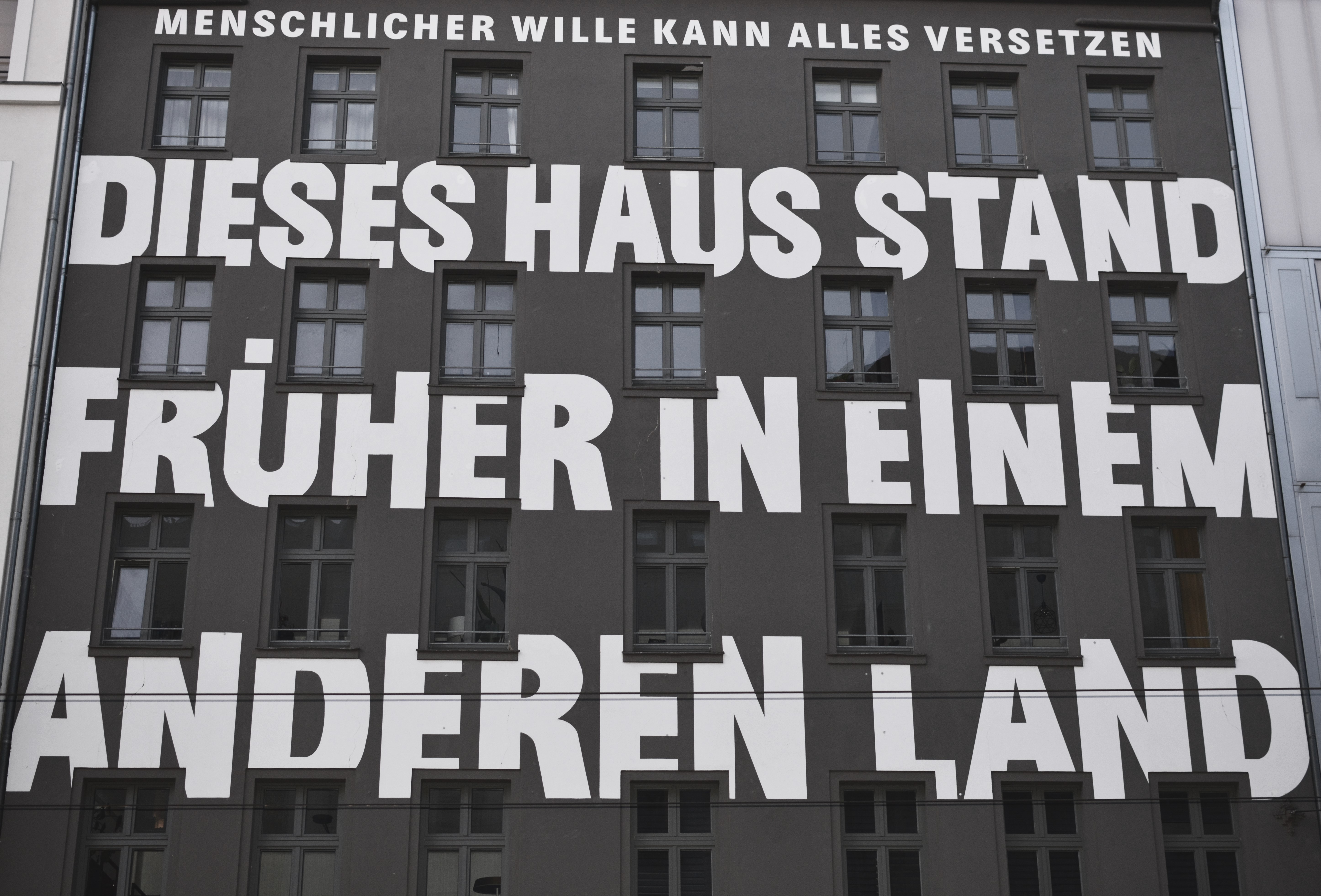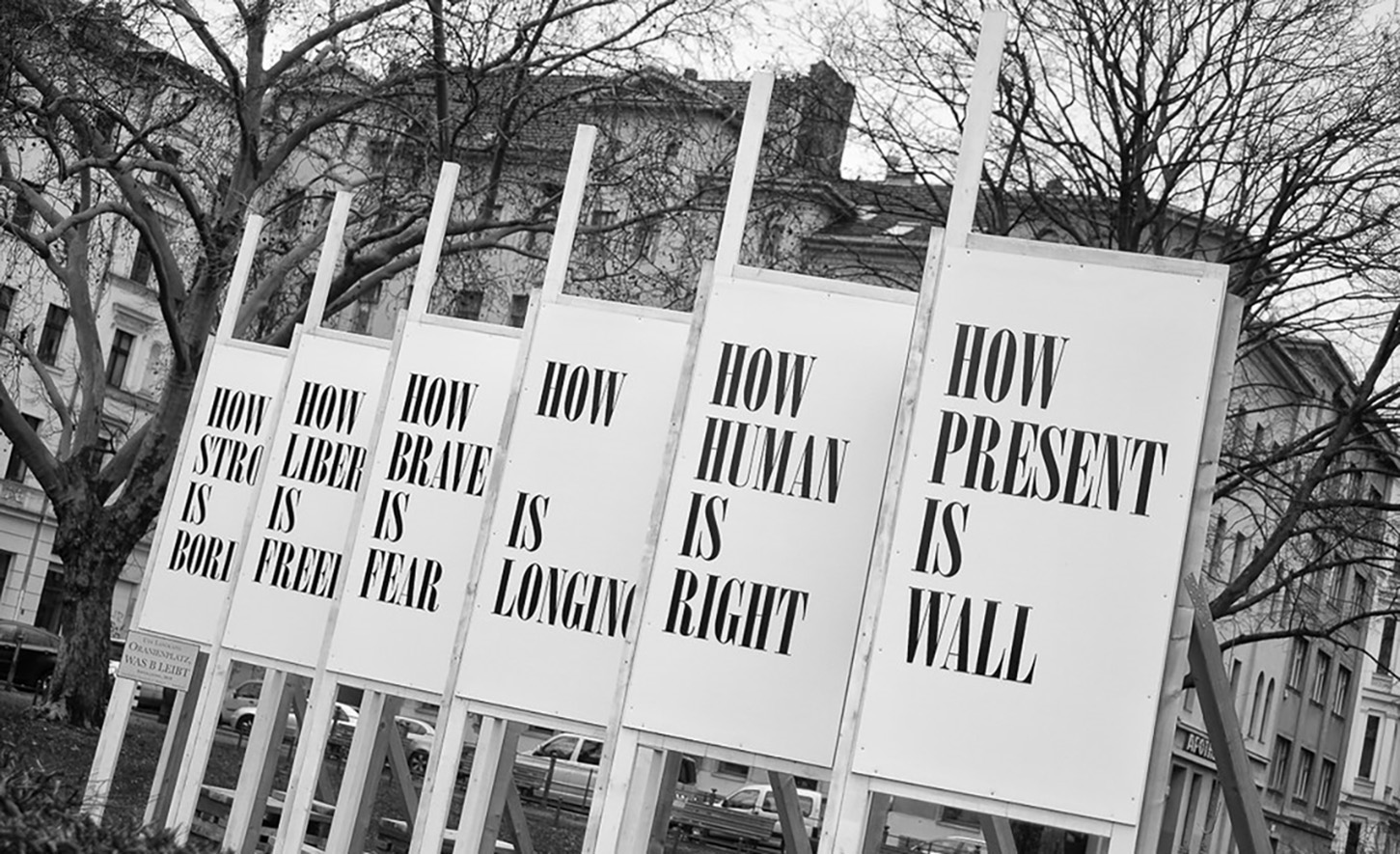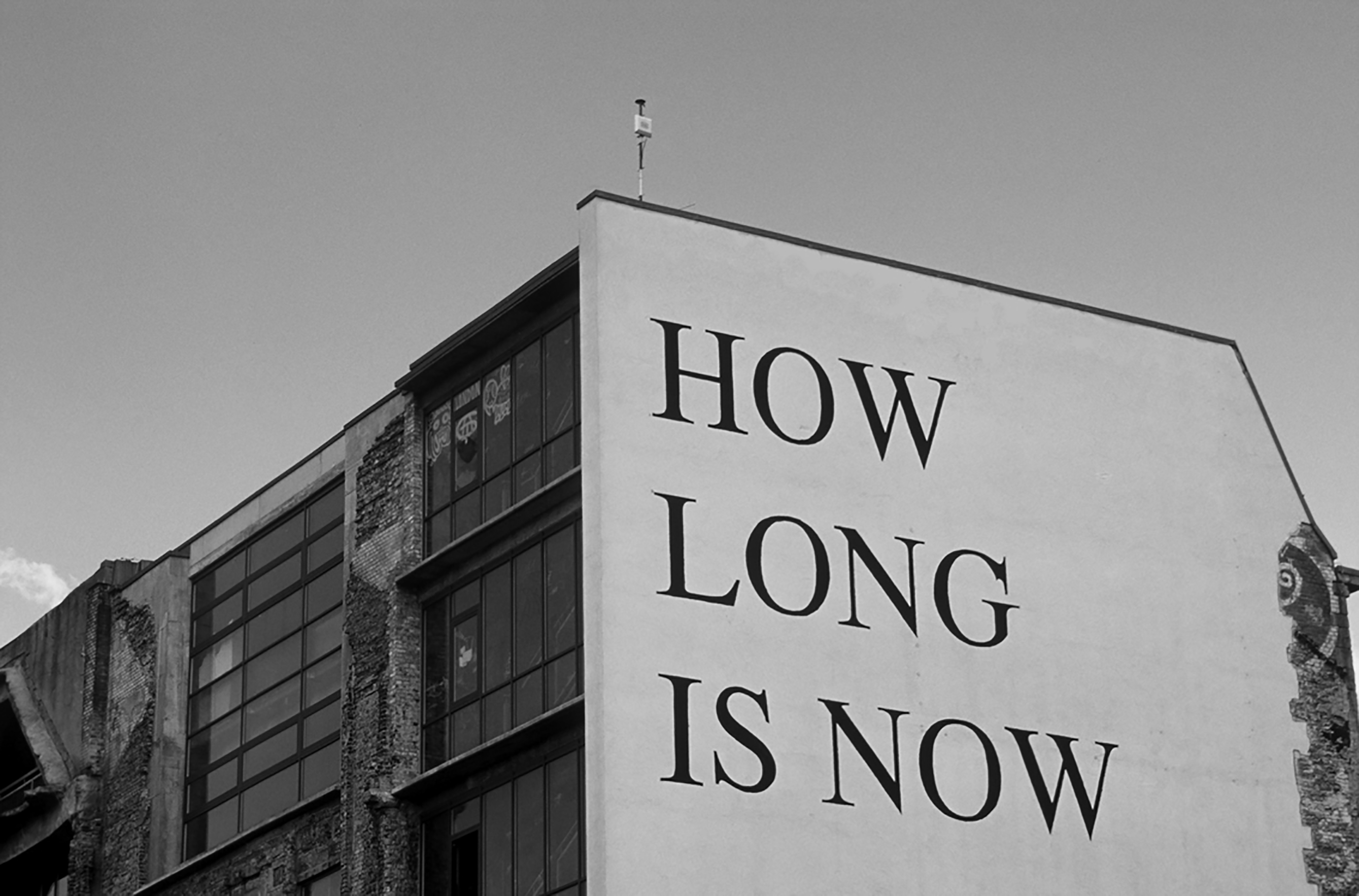
Walls
that Speak
Exploring typographic murals
of Berlin’s Kreuzberg and Mitte districts
written by Yevheniia Shyrchenko
Berlin is a sprawling metropolis that beautifully blends its rich history with modern elements. The districts of Mitte and Kreuzberg are especially noteworthy for their vibrant atmosphere, where the streets are adorned with striking typographic installations. These installations are a fusion of various typographic styles that reflect the diversity of the area. This article focuses on the beauty and distinctiveness of these art pieces and how they capture the essence of protests and historical transformations through typography.
“How long is now?” on Oranienburger Straße
The “Kunsthaus Tacheles” was an unique artistic and cultural venue in Berlin that was known for its vibrant and diverse artistic community. It stood as a symbol of artistic freedom and expression. On the East side of Kunsthaus Tacheles, there was a gigantic typographic mural called “How Long Is Now” that attracted visitors for many years.
The mural "How Long Is Now" on the side of the former Kunsthaus Tacheles building
It was located on one of Berlin’s liveliest streets and posed a profound existential question that compelled contemplation from those passing by. Perhaps, the artist aimed to immerse visitors in the immediacy of the present moment. Typography played a significant role in enhancing the overall composition of the mural. The artist has skillfully incorporated typographic elements to convey a powerful message. Using a serif, all-caps typeface adds a layer of intensity, making the message even more compelling. The mural was a symbol of the city and embodied the incredible and distinctive atmosphere of the iconic Kunsthaus Tacheles building. After the fall of the Berlin Wall, artists transformed the Kunsthaus Tacheles into a vibrant, eclectic space for creative expression and alternative culture. Unfortunately, in 2020, the mural met an unfortunate fate, as it was destroyed and bricked out due to construction work. The area is slated for redevelopment, with plans to repurpose it for offices, stores, and apartments.
Haus Schwarzenberg
Haus Schwarzenberg in Berlin embraces typography as an art form, showcasing its power to communicate and inspire. With walls adorned in intricate letterforms and expressive fonts, it celebrates the beauty and diversity of typographic design. Drawing inspiration from the city’s rich history and diverse culture, artists Dede Bandaid and Nitzan Mintz collaborated on a typography mural at Haus Schwarzenberg in Berlin. Their skillful blend of calligraphy, graffiti, and contemporary design created a captivating visual composition. The mural became a symbol of the city’s creative spirit, inviting viewers to engage with the power and beauty of written expression.
Typographic mural on a door in “Haus Schwarzenberg” by Dede Bandaid and Nitzan Mintz
“What remains?” on Oranienplatz
The installation located at Kreuzberg’s Oranienplatz
Installation by Ute Langkafel on Oranienplatz in Berlin-Kreuzberg in 2019
is a reference to the former notice boards that were placed on the so-called sector border between East and West Berlin before the Wall was built. These were intended to encourage the residents of East Berlin to attend cultural events in West Berlin. Three decades after the fall of the Wall, artist Ute Langkafel will use her intervention to raise questions about the current state of society. For this typographic installation, the artist chose a modern serif font, which has a strong contrast between thick and thin strokes. The design showcases dramatic large letterforms that capture the viewer’s attention and encourage them to reflect on the questions being posed.
“Dieses Haus stand früher in einem anderen Land” on Brunnenstraße
In November 2009, to mark the 20th anniversary of the fall of the Berlin Wall, artist Jean-Remy von Matt inscribed the facade of a building on Brunnenstraße in Berlin-Mitte with the words: “The human will can move everything. This house used to stand in another country.”
Inscribed building on Brunnenstraße by Jean-Remy von Matt in 2009
Just a few meters from this building, Berlin was divided into two parts by the Wall until 1989. This typographical object is one of the most famous memorials for German reunification. The artist chose a very bold neo-grotesque font for this typography sign, which draws the viewer’s attention and raises awareness of Berlin’s history.